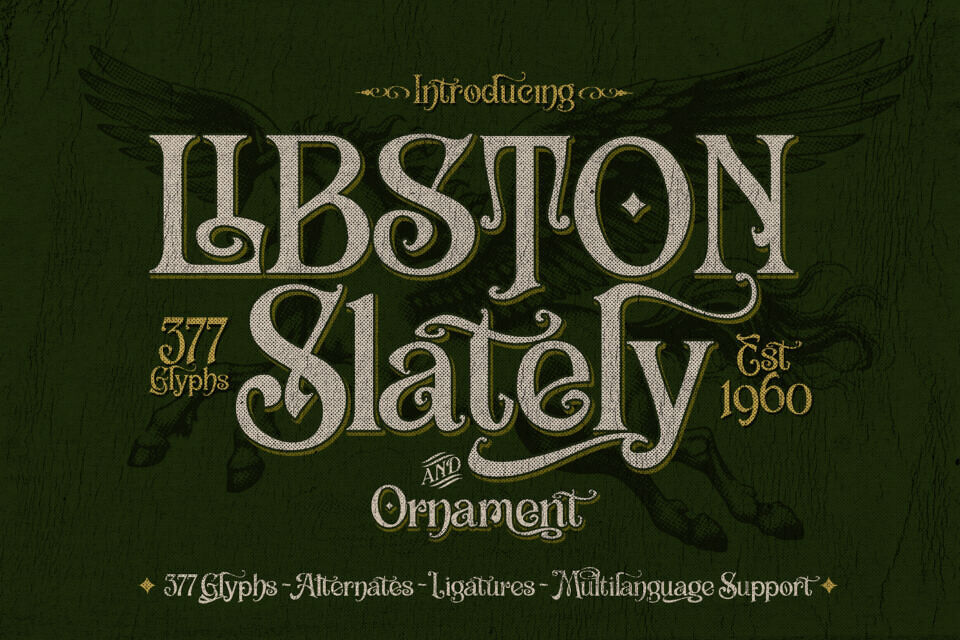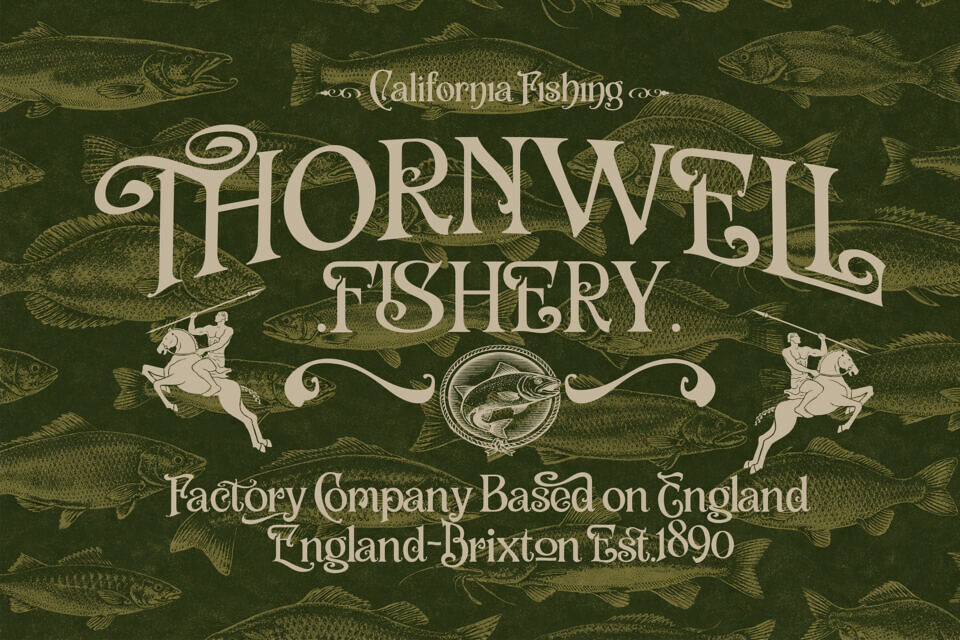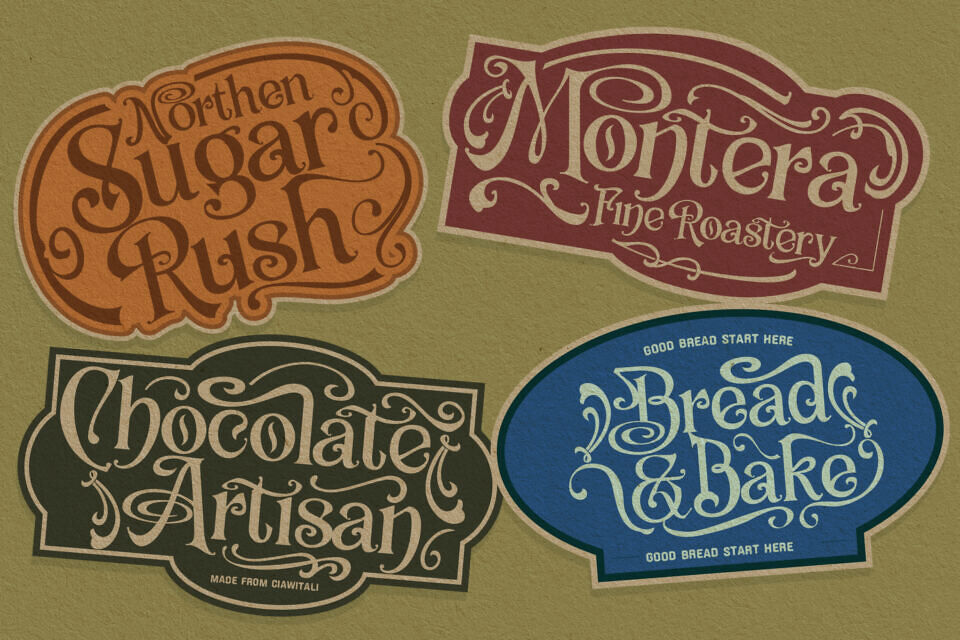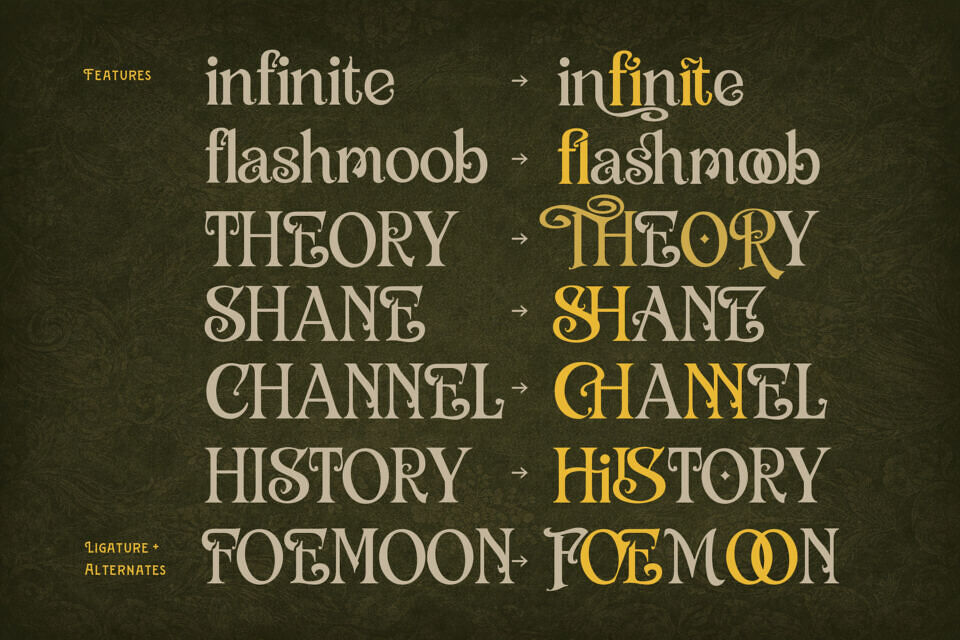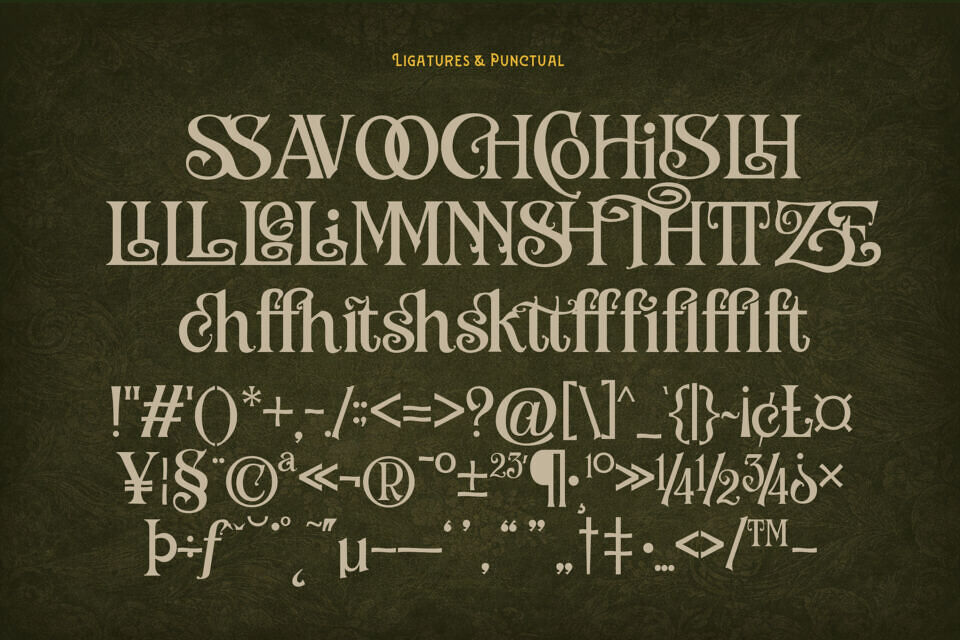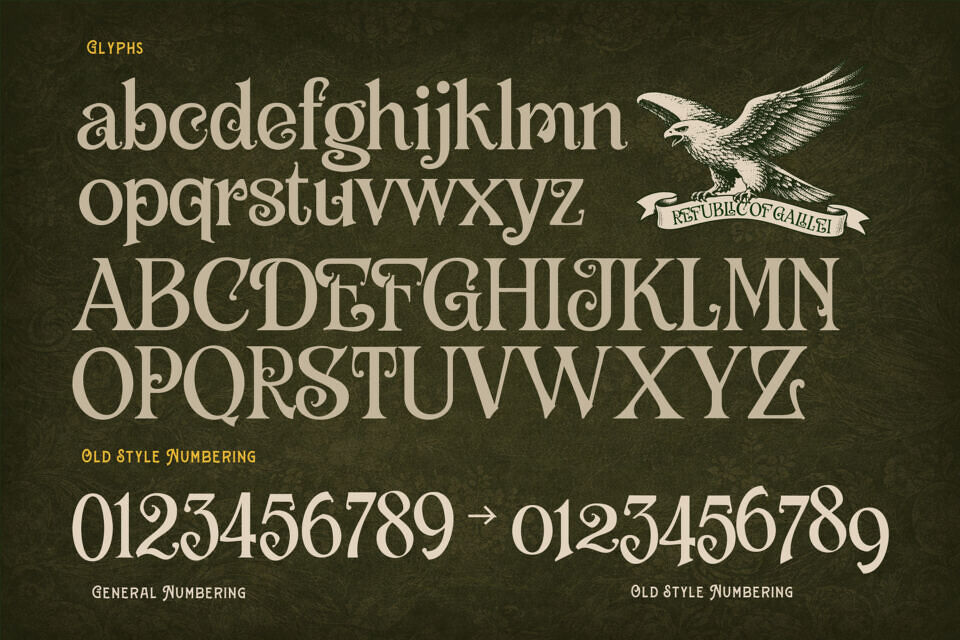
Libston Font
Libston is a vintage serif typeface inspired by Victorian heritage and classic label design. Crafted with curves, ornamental details, and refined contrast, this font brings a timeless sophistication to your projects.
With Bonus ornaments & catch words perfect for high-end branding, wine labels, packaging, logos, editorial layouts, and vintage-inspired designs, Libston delivers a strong historical character with modern usability